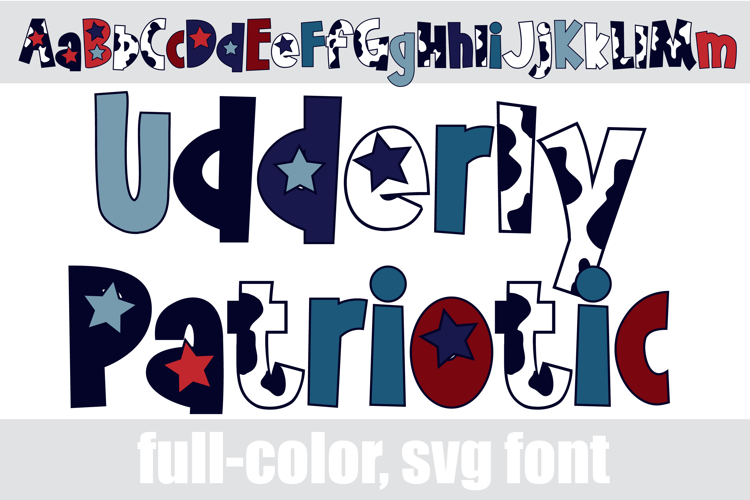
Udderly Patriotic Color Font
This full-color, cow-print style font is in a patriotic color palette. There is an alt case of additional colors of each letter that you can access through your system's character map.